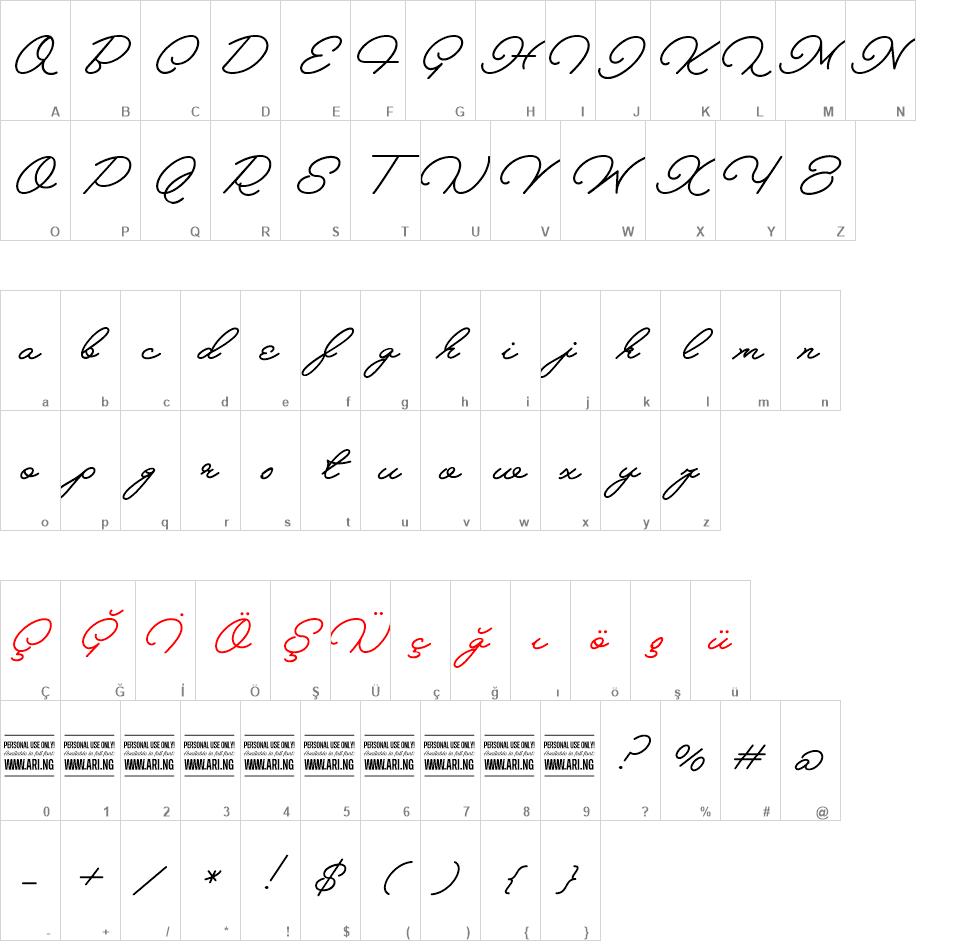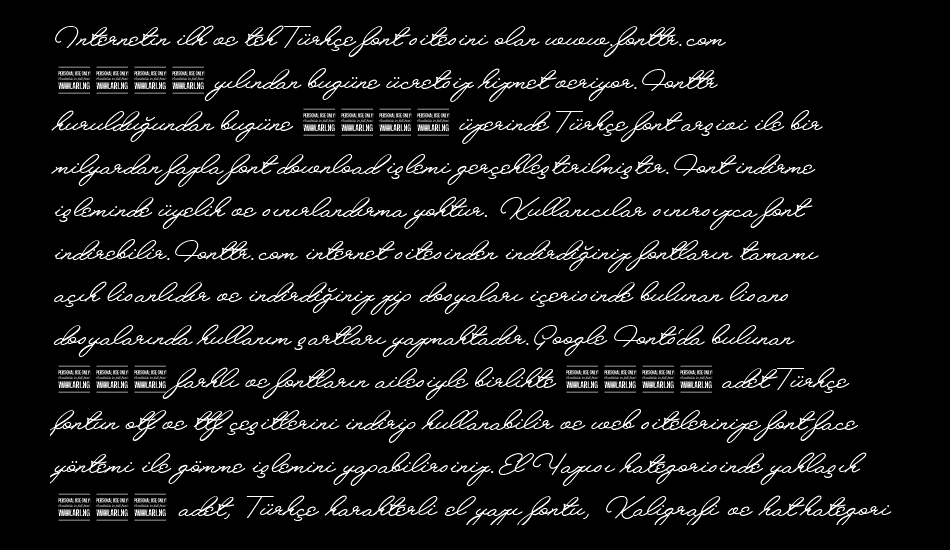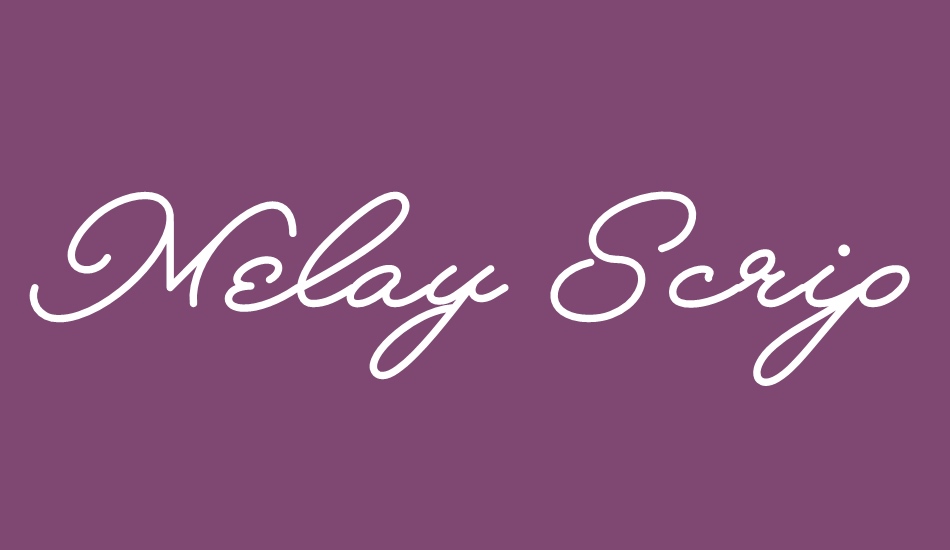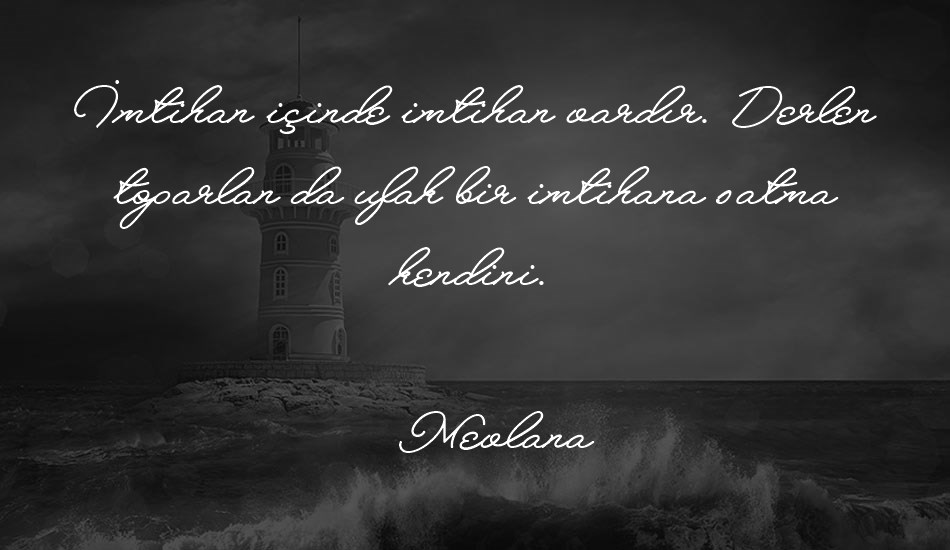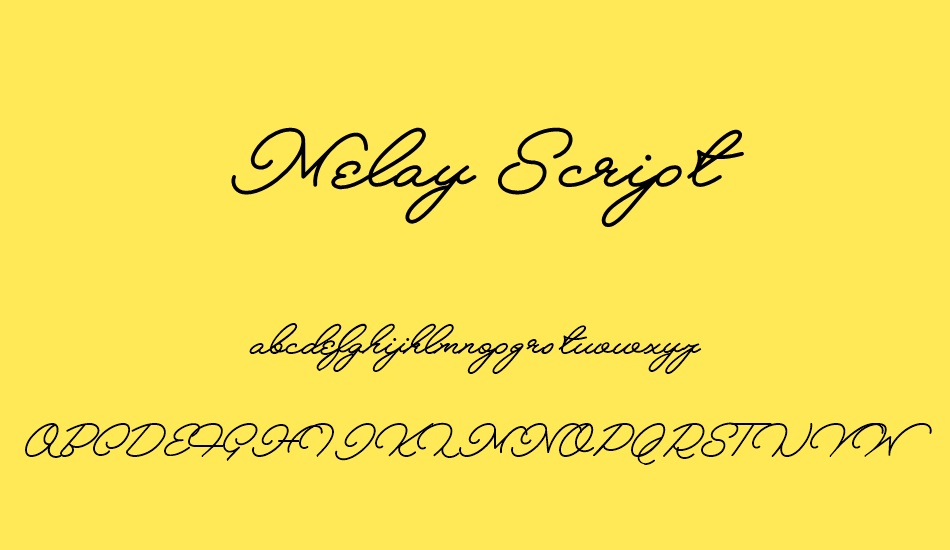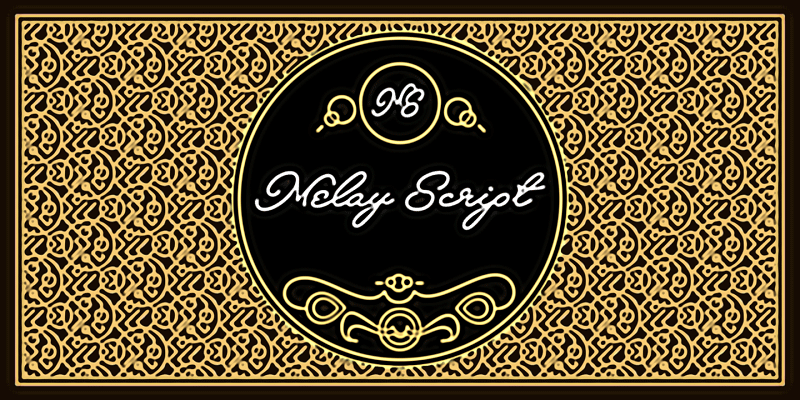
Melay Script font
Melay Script is a monolined calligraphic typeface, with large and
beautiful upper-case letters and a decorative style.
Cooperatively designed by M?ns Greb?ck and Noah Kinard, it has elegance and confidence.